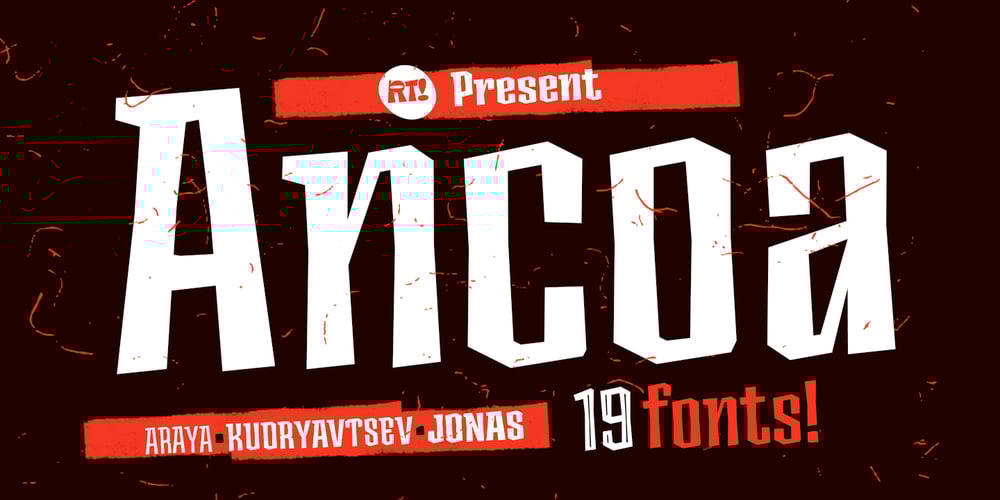
Ancoa
Ancoa font
Ancoa Font Family was designed by Andrey Kudryavtsev, Rodrigo Araya Salas, Franco Jonas Hernández and published by RodrigoTypo. Ancoa contains 20 styles and family package options. Ancoa is a Sans Serif Display typeface, which plays with its rough form and works perfectly on posters, designs of different uses, contains 19 fonts and includes different styles from Inline, Layer Inline, Rough and the different Weights between Regular to Fat.